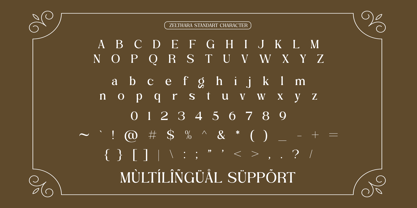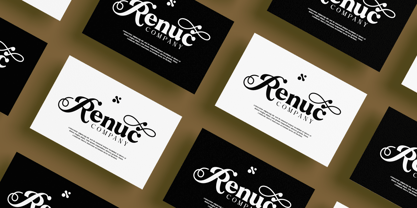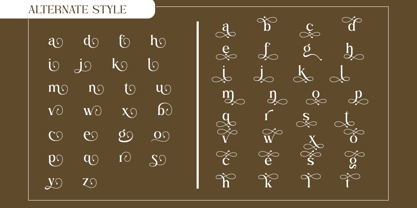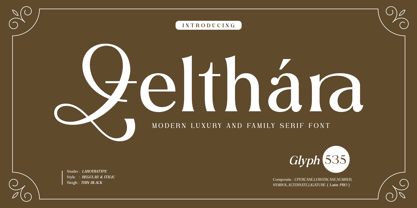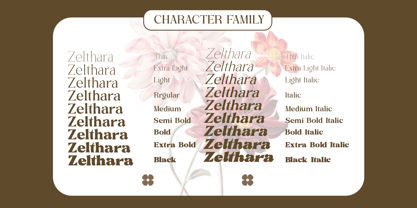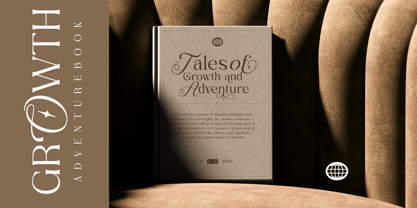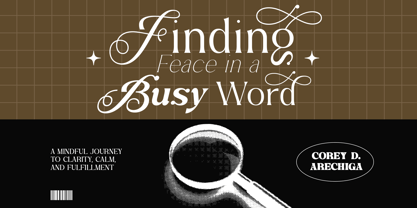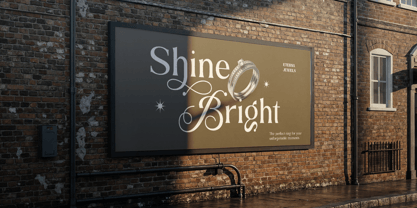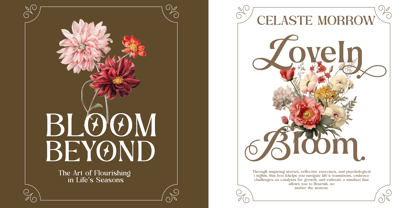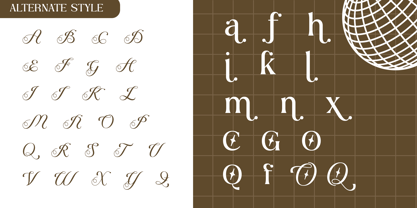
Zelthara Sans
by Laroyba Type
The Zelthara Sans Font Family was designed by Habib Abdur Rofi and published by Laroyba Type. Zelthara Sans contains 18 styles and family package options. More about this family
Zelthara – Modern Elegant Sans Serif Font Family Zelthara is a modern elegant sans serif font family crafted for designers who seek a clean, refined, and luxury look. Blending contemporary minimalism with graceful proportions, Zelthara delivers a sophisticated presence while maintaining excellent readability. Its sleek letterforms make it perfect for professional branding, stylish logos, and high-end visual identities. Designed as a versatile branding typeface, Zelthara comes with rich stylistic alternates and ligatures, allowing you to create distinctive wordmarks and expressive typography effortlessly. Whether you’re working on fashion labels, beauty brands, editorial layouts, wedding stationery, packaging, or social media campaigns, Zelthara helps you achieve a premium and timeless aesthetic. Perfect for: • Branding & logos • Editorial layouts • Fashion & beauty • Wedding invitations • Packaging • Social media & marketing Features: • Multiple weights & styles • Stylistic alternates • Ligatures • Multilingual support • Clean, modern forms Zelthara is more than a typeface — it’s a statement of elegance.
Designers: Habib Abdur Rofi
Foundry: Laroyba Type